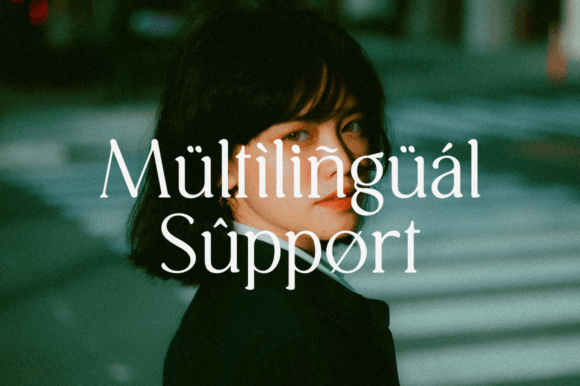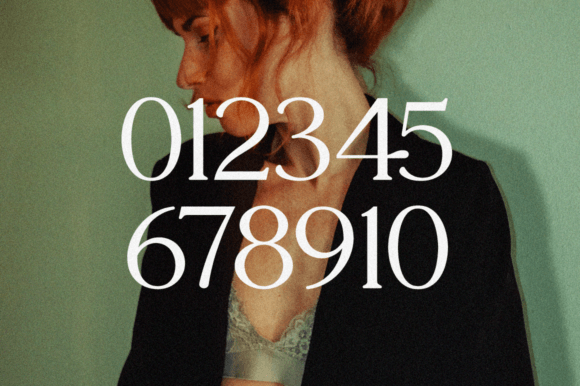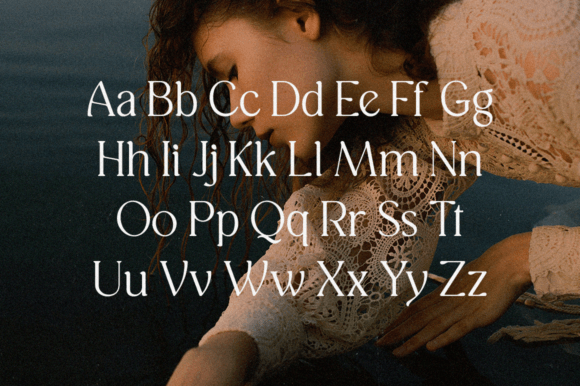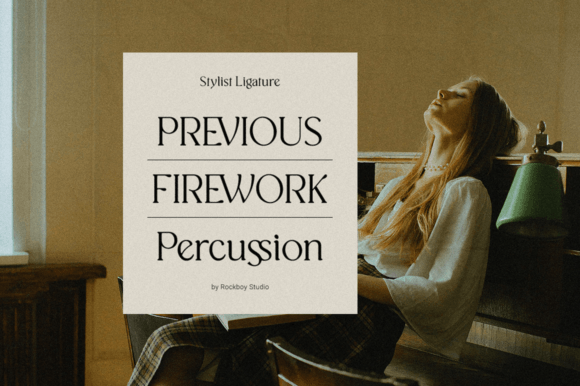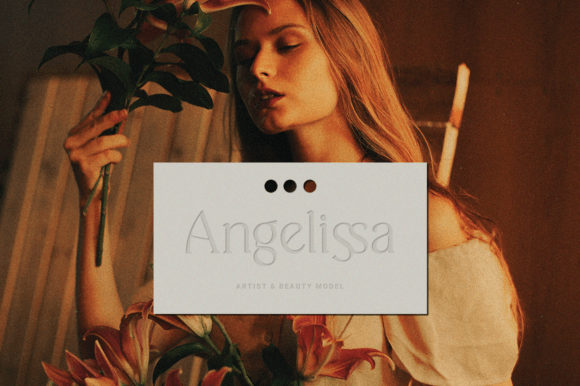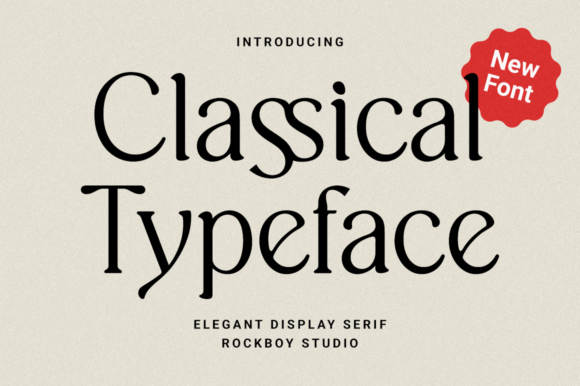
Discover the Timeless Elegance of Classical Typeface Font
In the world of typography, few fonts have managed to stand the test of time like the Classical Typeface font. This classic serif font has been a staple in the design industry for years, and its versatility has made it a go-to choice for designers and crafters alike. Whether you’re working on a logo design, branding project, web design, packaging, or social media campaign, Classical Typeface is the perfect choice to add a touch of elegance and sophistication.
What is Classical Typeface Font?
Classical Typeface is a traditional serif font that draws inspiration from classic typography. Its design is rooted in the traditional printing techniques of the past, with subtle variations in line width and elegant serifs that give it a distinctive look. The font features a range of characters, including uppercase and lowercase letters, numbers, and punctuation marks, making it a comprehensive solution for a wide range of design projects.
Key Features of Classical Typeface Font
• Classic Serif Design: Classical Typeface features a traditional serif design that exudes elegance and sophistication.
• Versatile: This font is perfect for a wide range of design projects, from logo design and branding to web design and packaging.
• Highly Legible: The font’s clear and concise design makes it highly legible, even at small sizes.
• Comprehensive Character Set: Classical Typeface features a range of characters, including uppercase and lowercase letters, numbers, and punctuation marks.
Uses of Classical Typeface Font
Classical Typeface is an incredibly versatile font that can be used in a wide range of design projects. Here are some of the most popular uses of this font:
• Logo Design: Classical Typeface is perfect for creating logos that require a touch of elegance and sophistication.
• Branding: This font is ideal for branding projects that require a classic and timeless look.
• Web Design: Classical Typeface can be used to create stunning websites that require a touch of elegance and sophistication.
• Packaging: This font is perfect for packaging projects that require a classic and timeless look.
• Social Media: Classical Typeface can be used to create engaging social media content that requires a touch of elegance and sophistication.
Benefits of Using Classical Typeface Font
There are many benefits to using Classical Typeface in your design projects. Here are some of the most significant advantages:
• Timeless Elegance: Classical Typeface features a timeless design that will never go out of style.
• Versatility: This font can be used in a wide range of design projects, from logo design to web design.
• Highly Legible: Classical Typeface is highly legible, even at small sizes, making it perfect for use in a variety of contexts.
• Easy to Pair: This font pairs well with a wide range of other fonts, making it easy to use in combination with other typefaces.
Tips for Using Classical Typeface Font
Here are some tips for using Classical Typeface in your design projects:
• Use it Sparingly: Classical Typeface is a powerful font that can be overwhelming if used too much. Use it sparingly to create a sense of elegance and sophistication.
• Pair it with Other Fonts: This font pairs well with a wide range of other fonts. Experiment with different pairings to find the perfect combination for your project.
• Adjust the Size and Style: Classical Typeface can be used at a variety of sizes and styles. Experiment with different sizes and styles to find the perfect look for your project.
Classical Typeface is a timeless and elegant font that is perfect for a wide range of design projects. Its versatility, highly legible design, and comprehensive character set make it a go-to choice for designers and crafters alike. Whether you’re working on a logo design, branding project, web design, packaging, or social media campaign, Classical Typeface is the perfect choice to add a touch of elegance and sophistication.